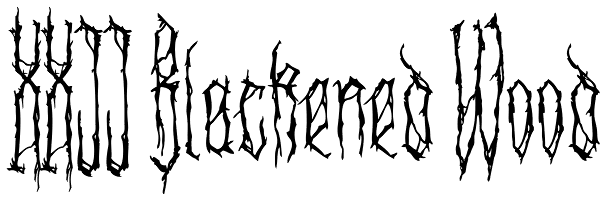
XXII Blackened Wood
XXII BlackenedWood is the cheap alternative for you to easy create a logo for your band or whatever. Or you may use it for badly readable texts of evil looking black magic books. It comes with a Latin-Extended-A characterset and a little bunch of...